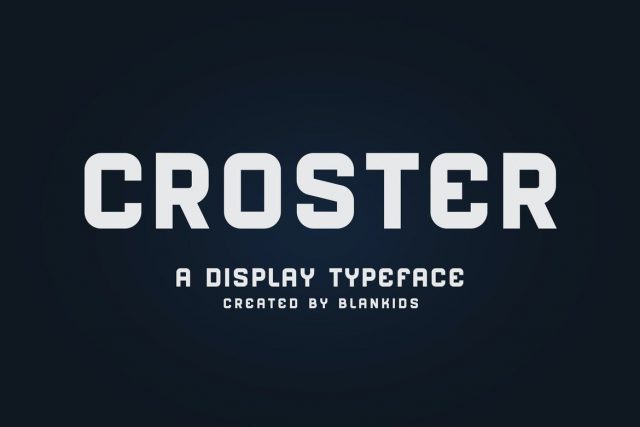
Introducing of our new product the name is Croster a display typeface. Croster good for logotype, label, badge, headline, signature, packaging and any more.
MULTILINGUAL ACCENT :
ŽžŠŒšŸÀÁÂÃÄÅÆÇÈÉÊËÌÍÎÏÐÑÒÓÔÕÖØÙÚÛÜÝßàáâãäåæçèéêëìíîïñòóôõöøùúûüýÿ